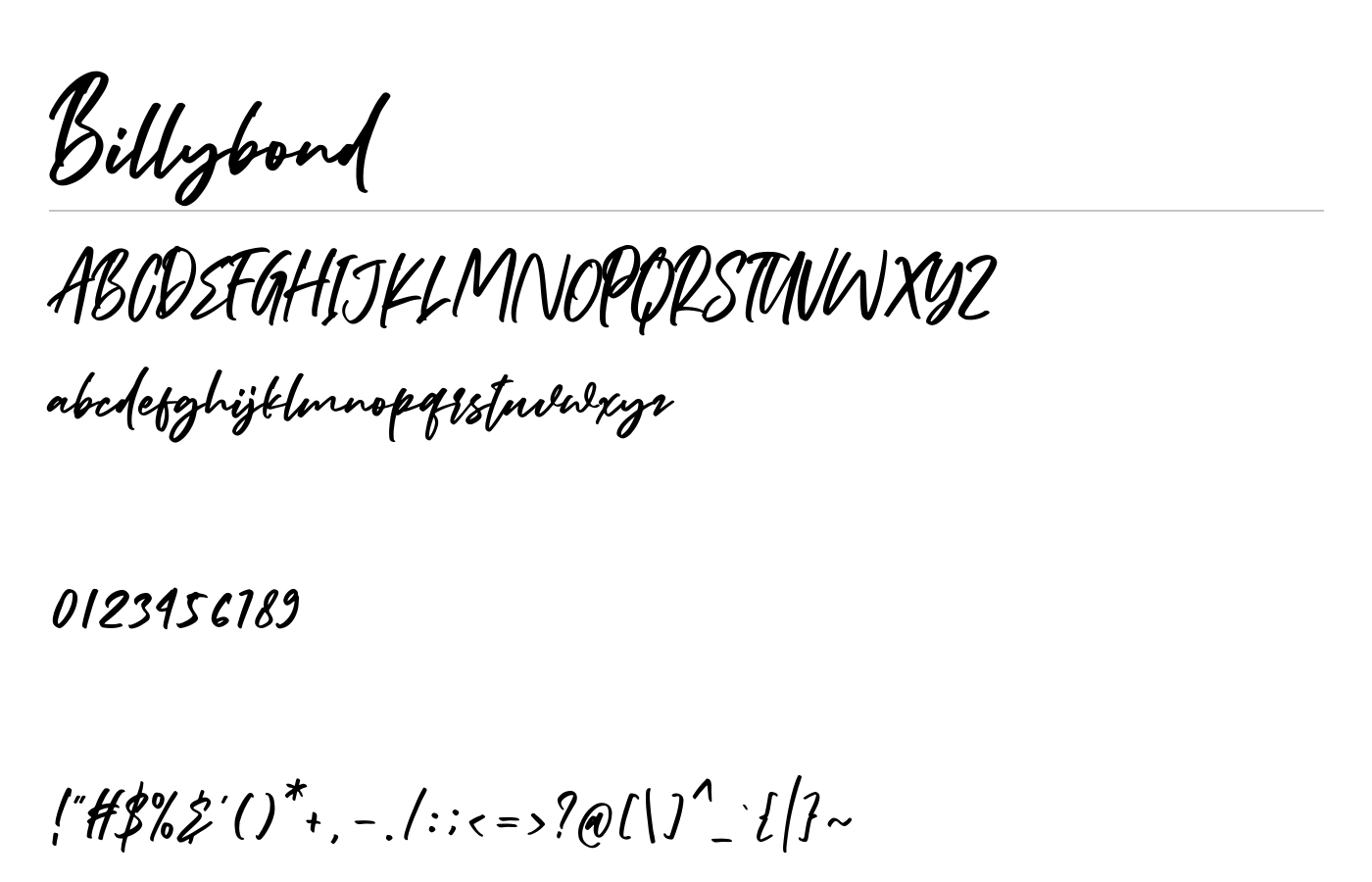
Billybond is a lively, handwritten script font with a natural, flowing style that feels personal and energetic. Its moderate weight and fluid strokes make it perfect for projects needing a casual yet stylish touch, such as logos, invitations, and creative branding that seeks warmth and approachability. This font works well where a hand-crafted, informal vibe is desired, adding personality to headlines, packaging, and social media graphics.
Billybond Font
About Billybond Font